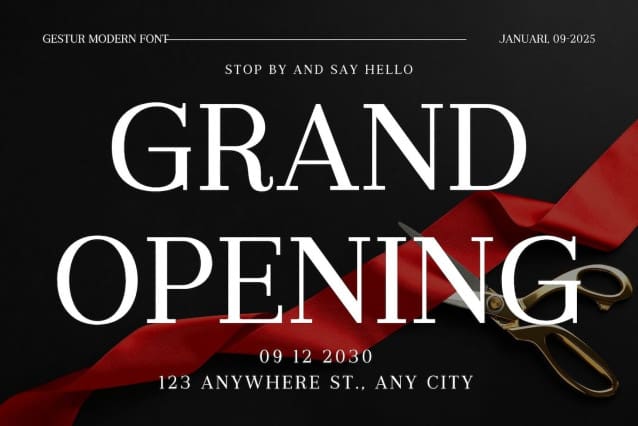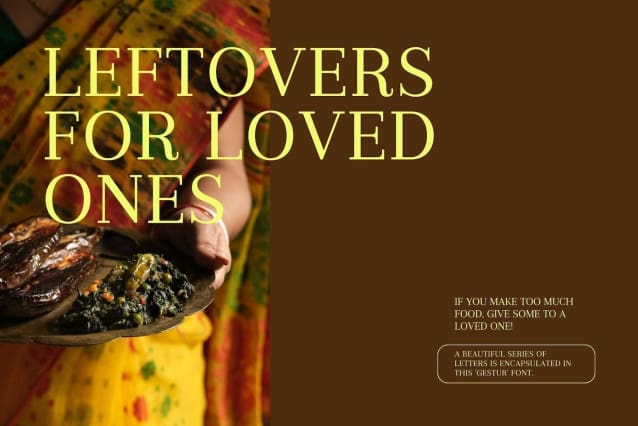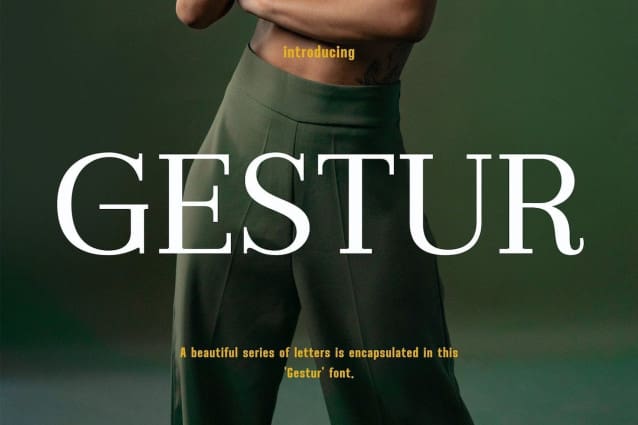
Gestur Font
Gestur Font a beautiful series of letters is encapsulated in this “Gestur” font. Neat lettering is perfect for modern writing needs and is easy on the eyes. It gives a modern feel while remaining stylish when used for writing. Cleanliness in the making of each letter is our top priority. You can have fun and get creative using this font product we created because the results will definitely be very satisfying.